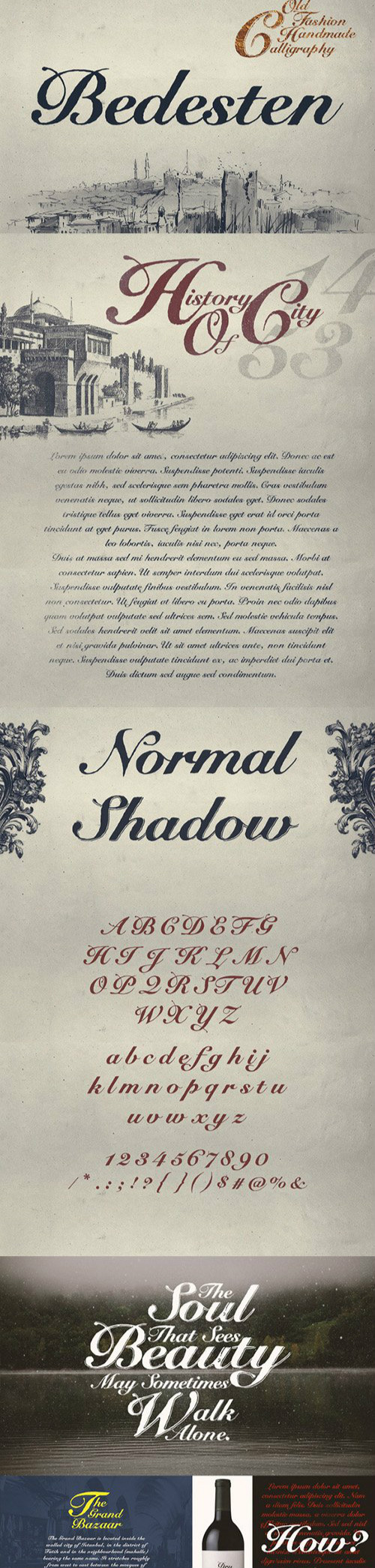
Bedesten
Bedesten Script Font
Bedesten vintage script font with modern style, this font will perfect for many different project ex: quotes, logo, blog header, poster, banding, fashion, apparel, letter, invitation, stationery, etc…